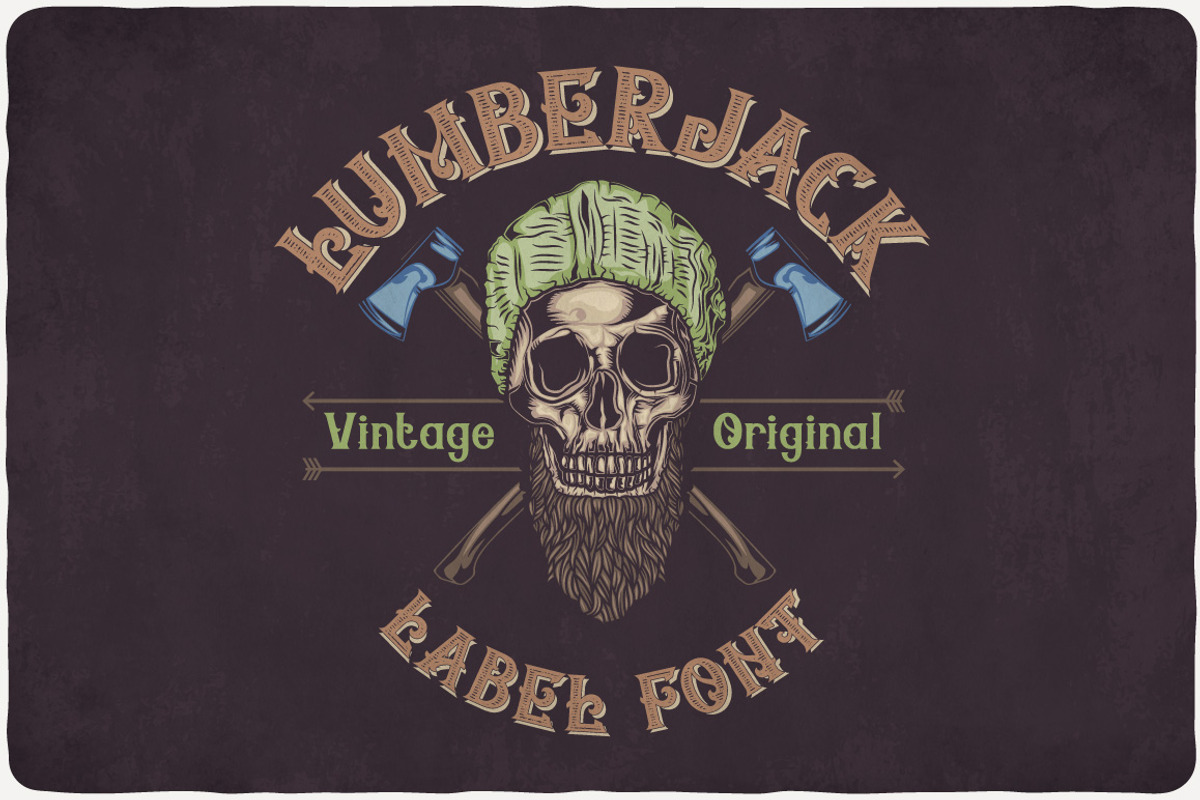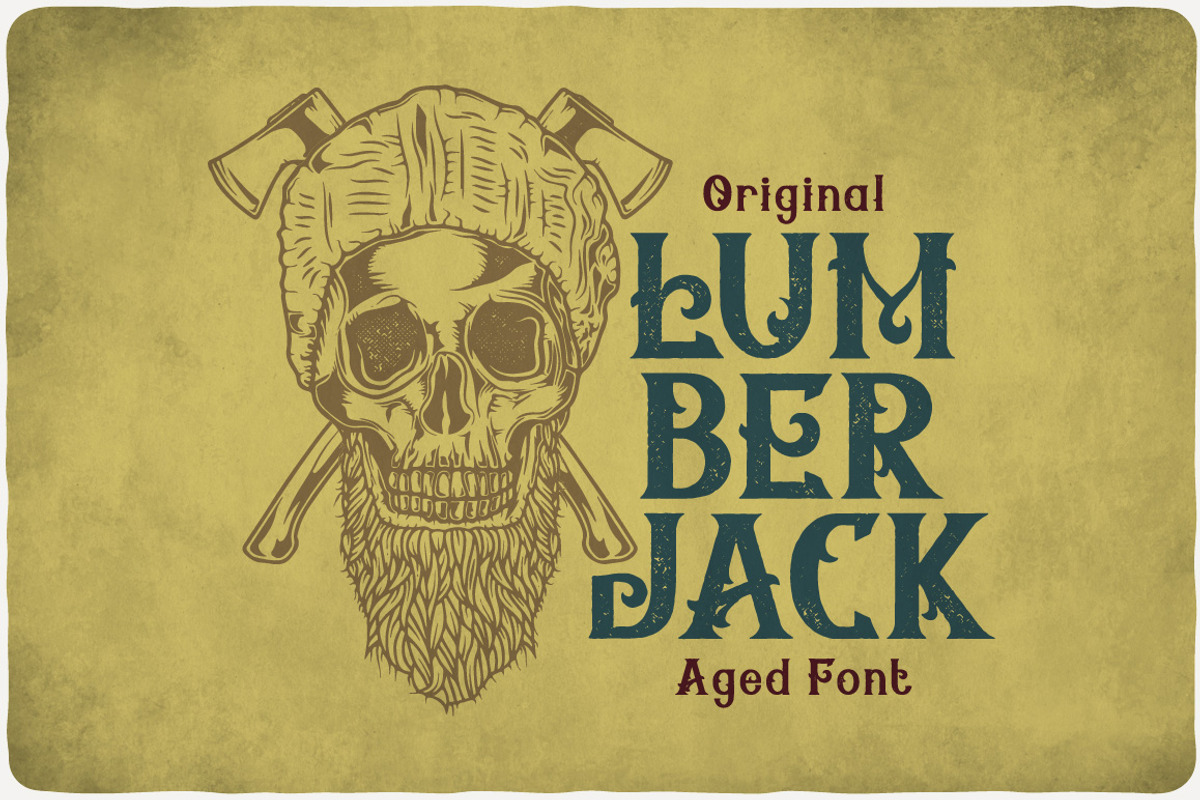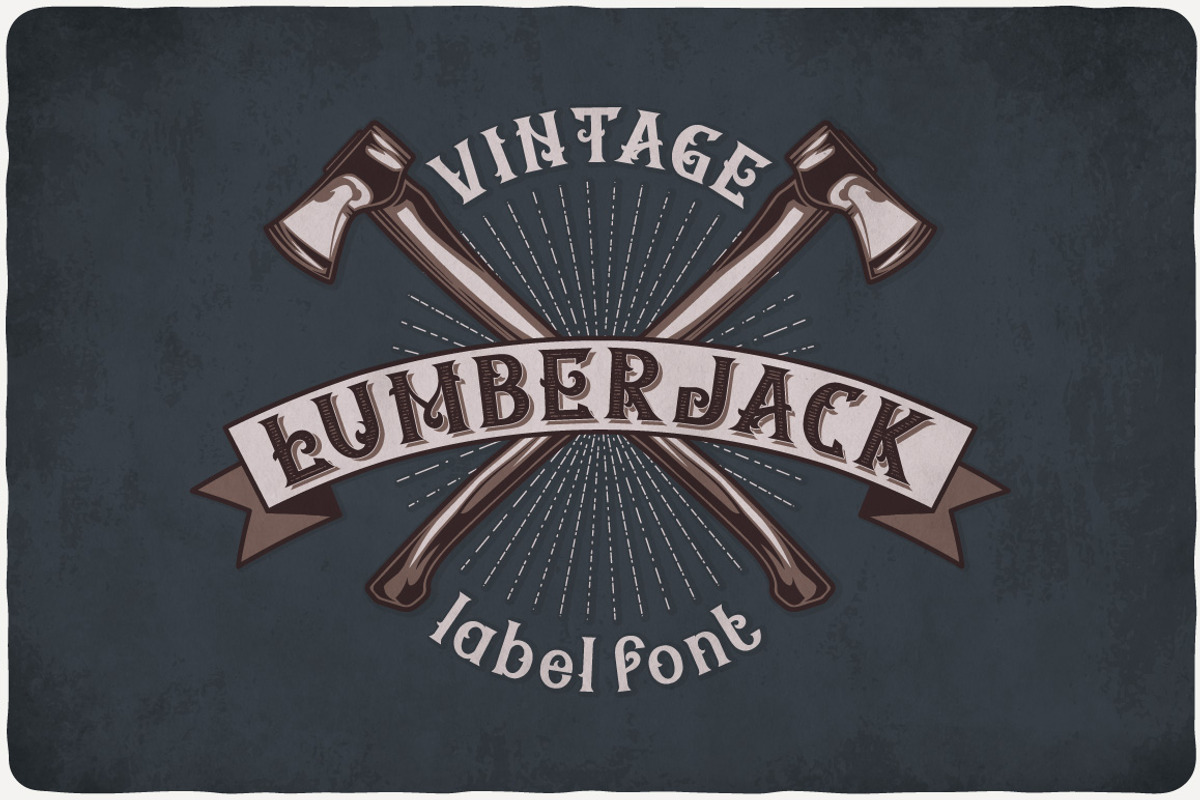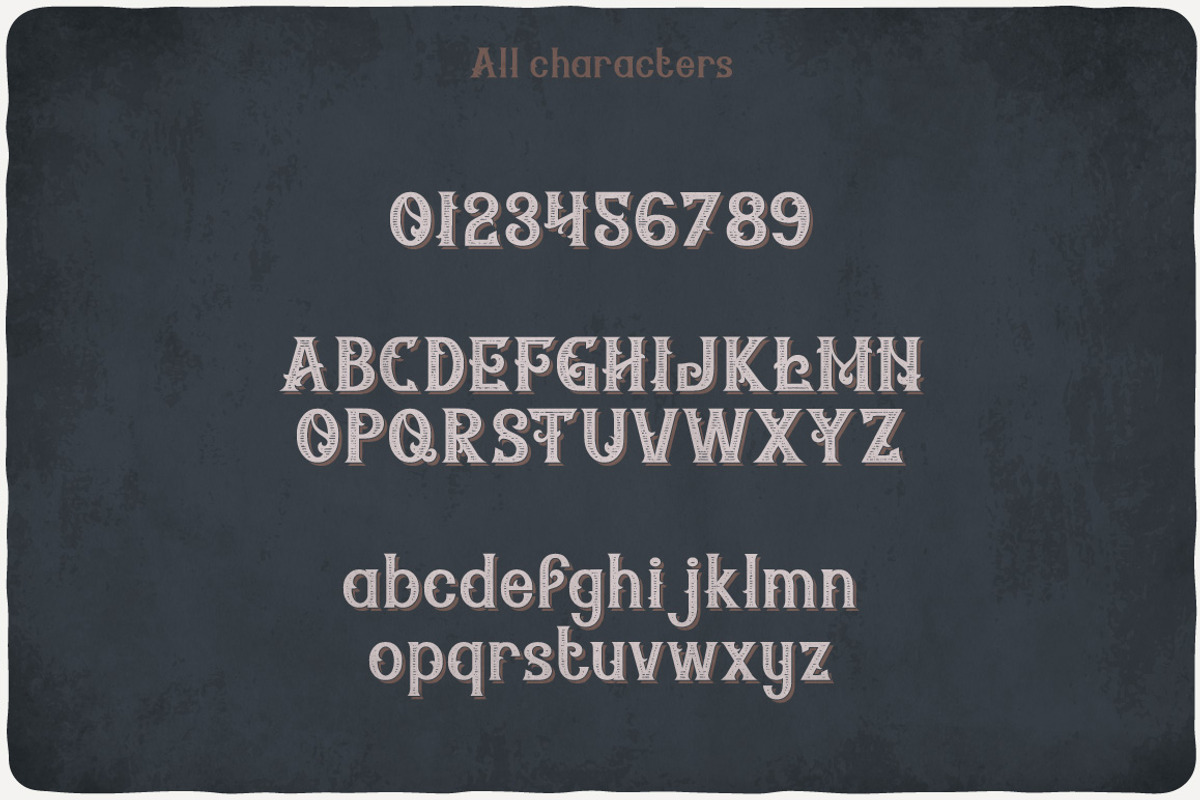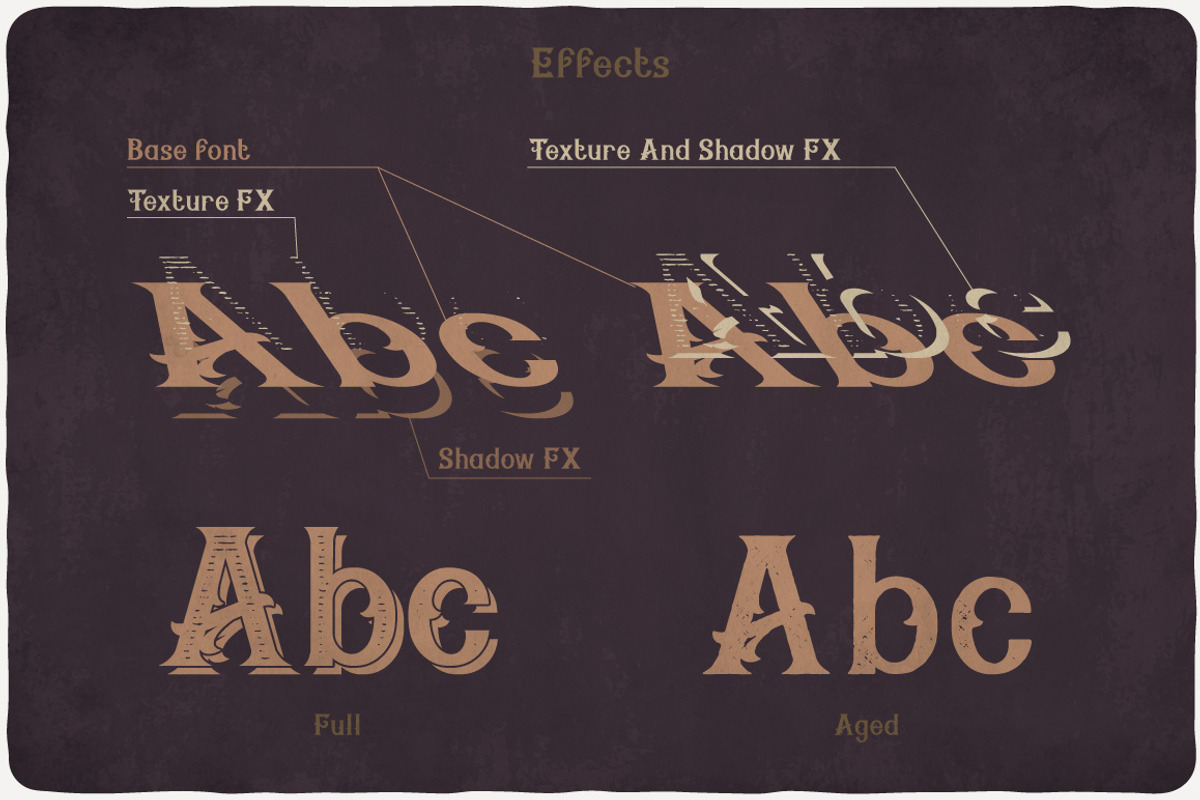
Lumberjack Typeface
Introducing a vintage look label typeface named "Lumberjack". It's made in strong and vintage label style. Typeface is good viewed on any labels design.
Lumberjack Typeface by VozzyStock fits naturally into Branding, posters, packaging, typography.